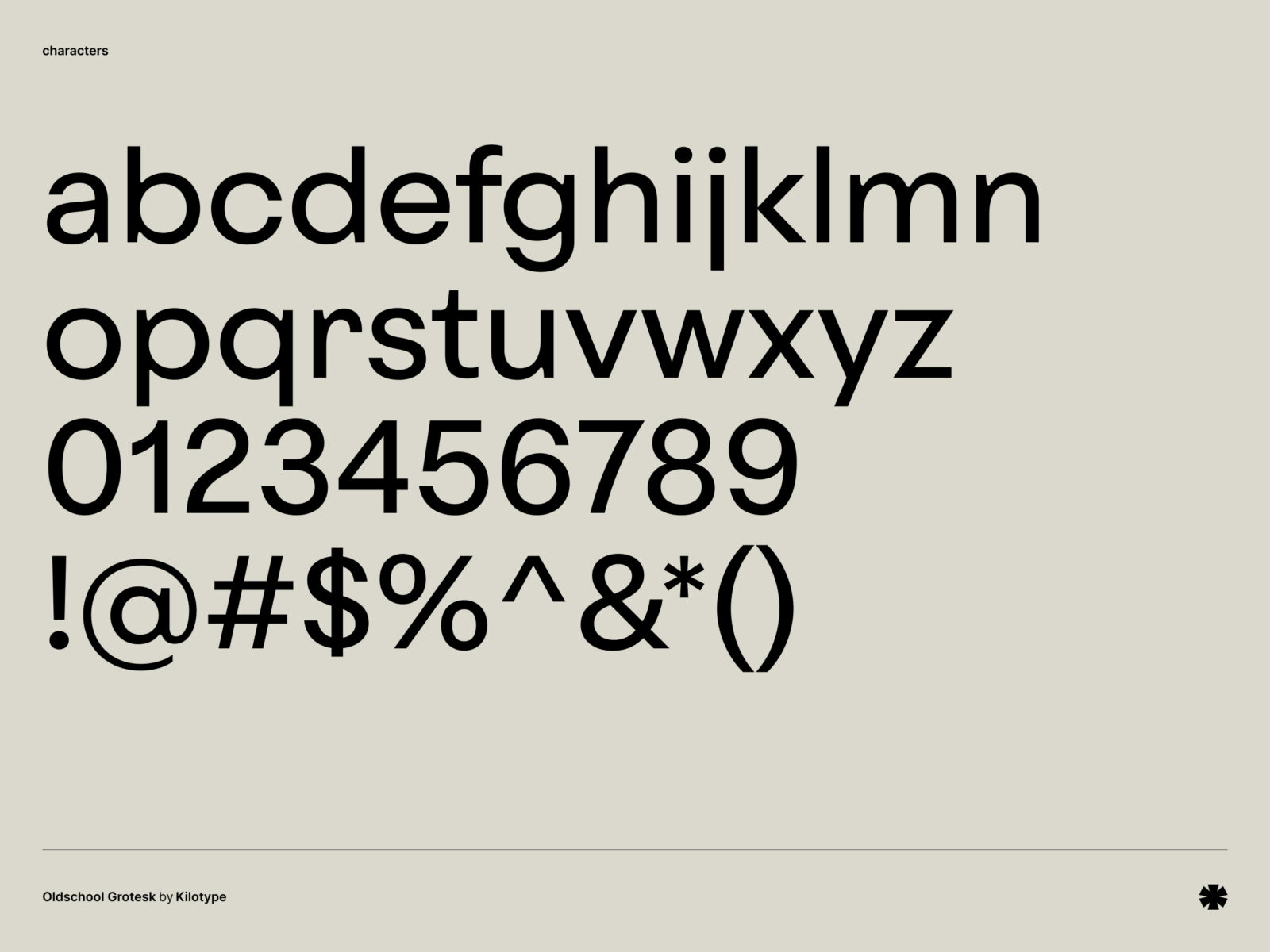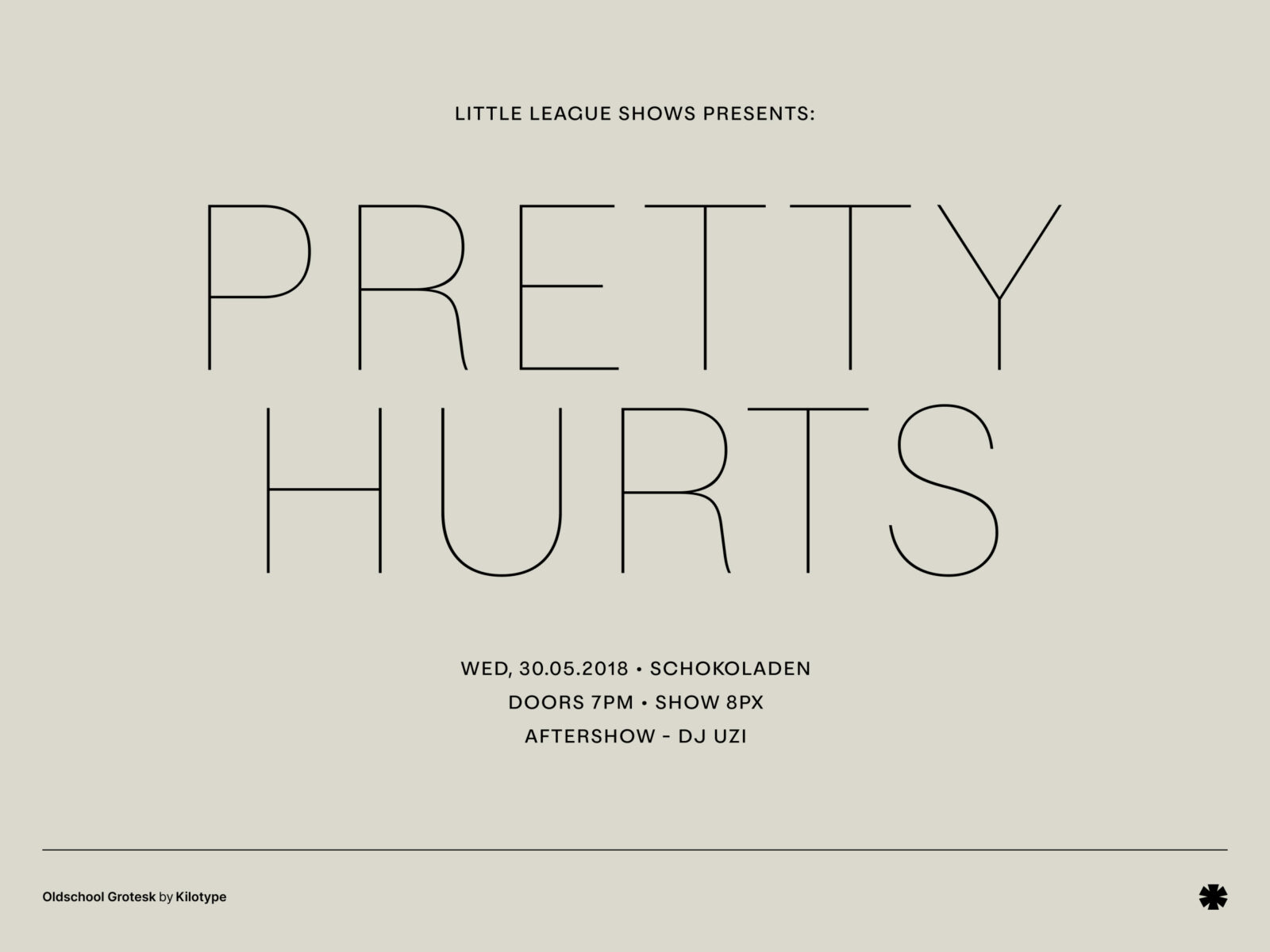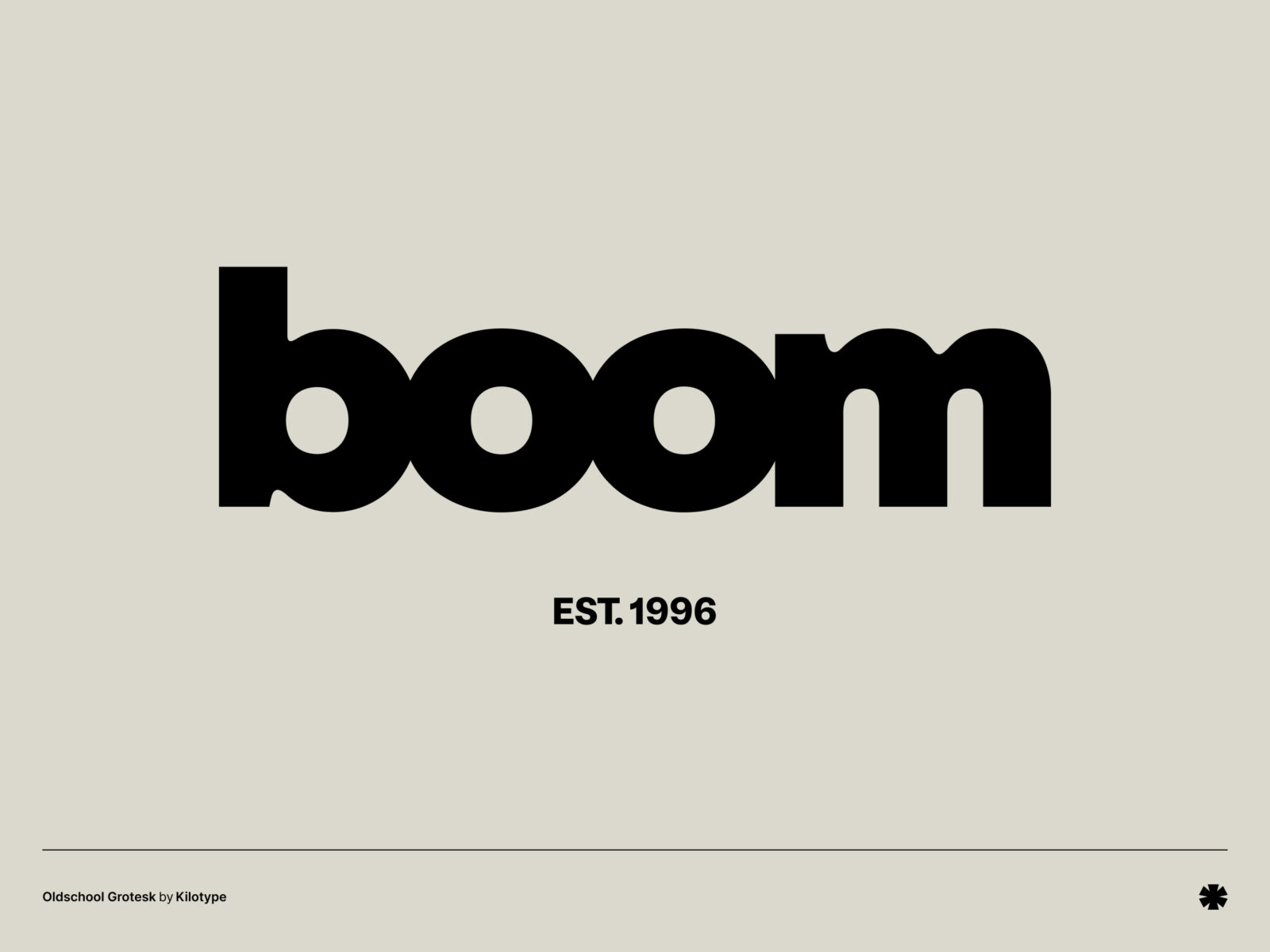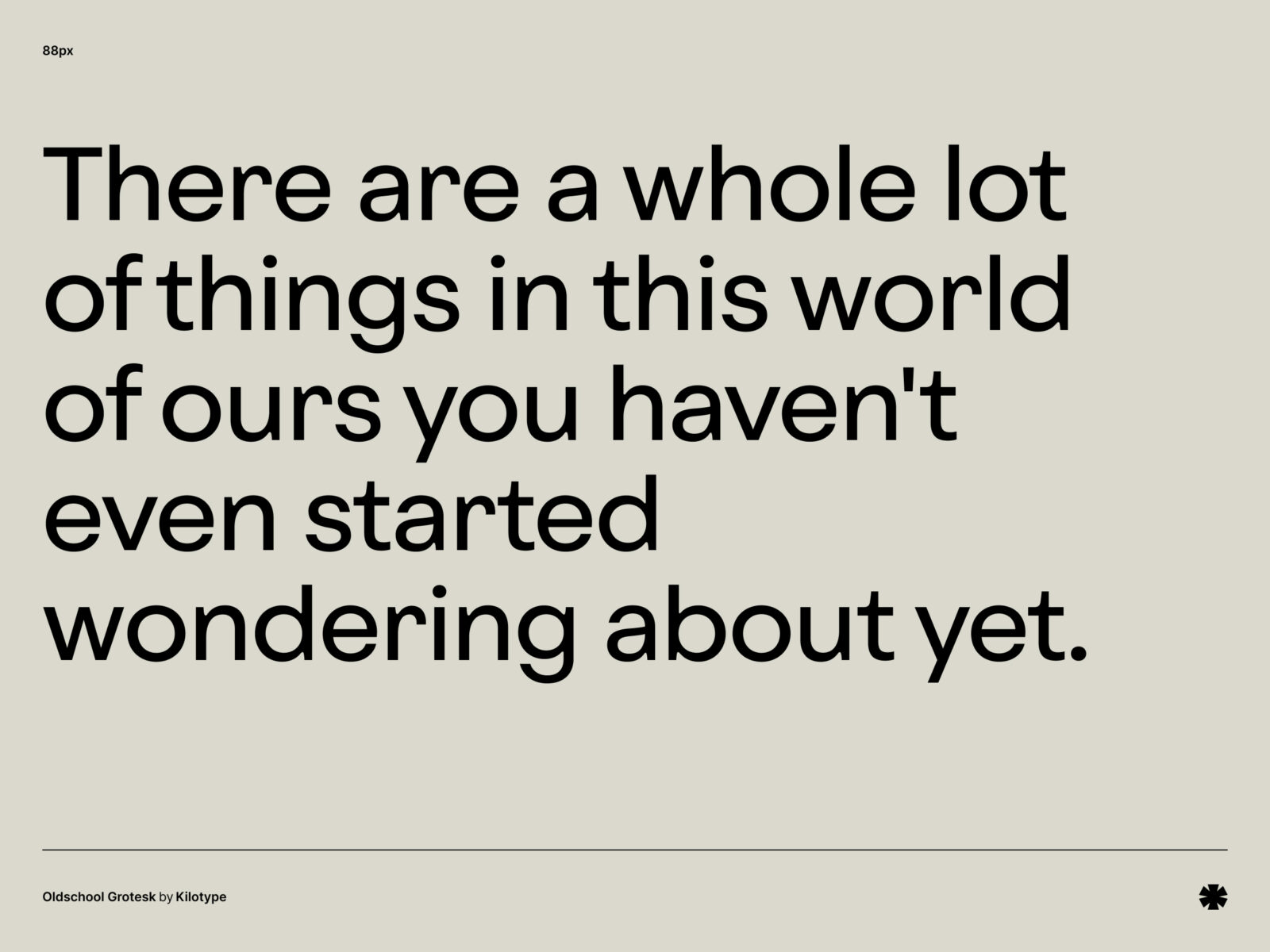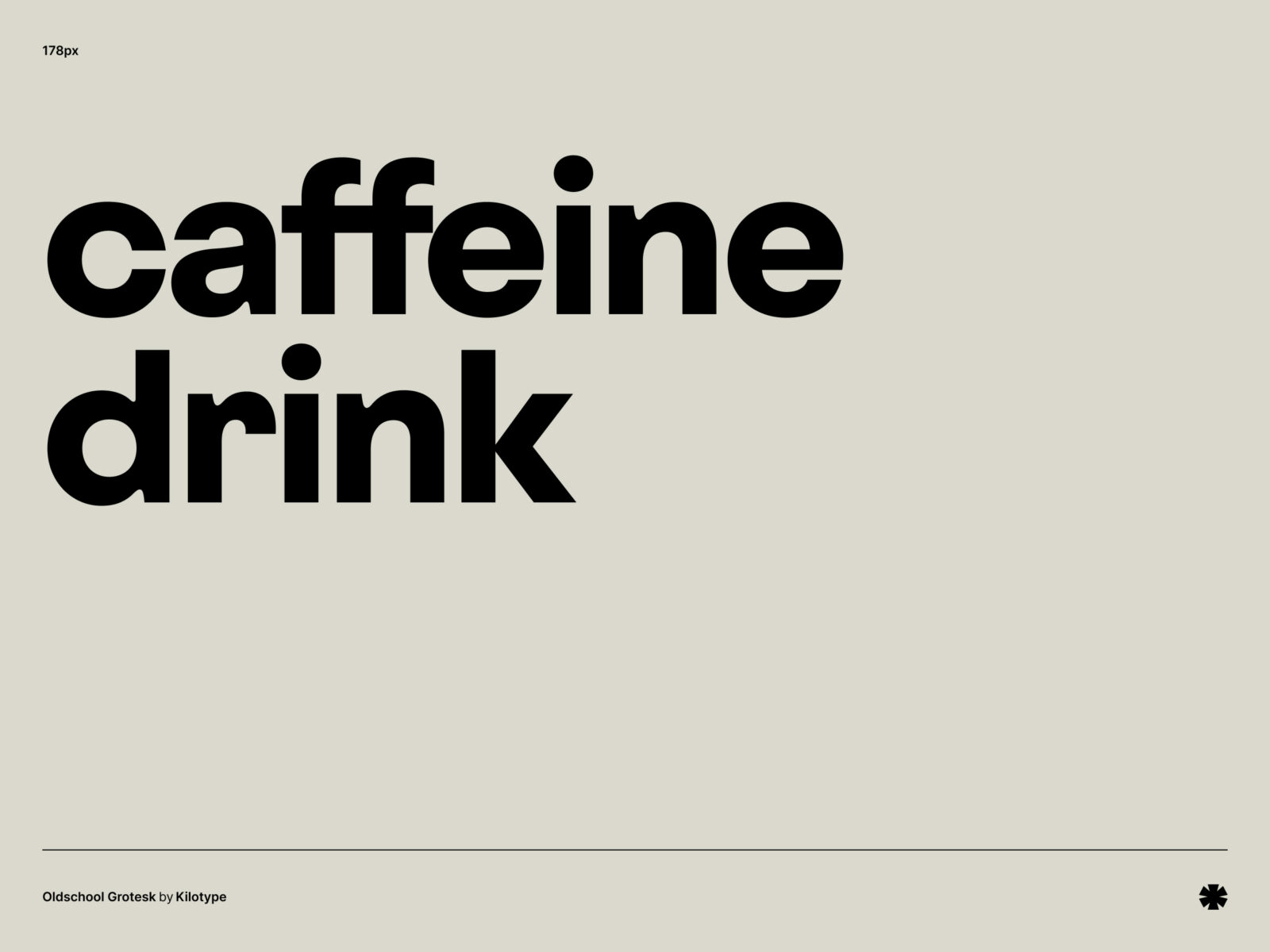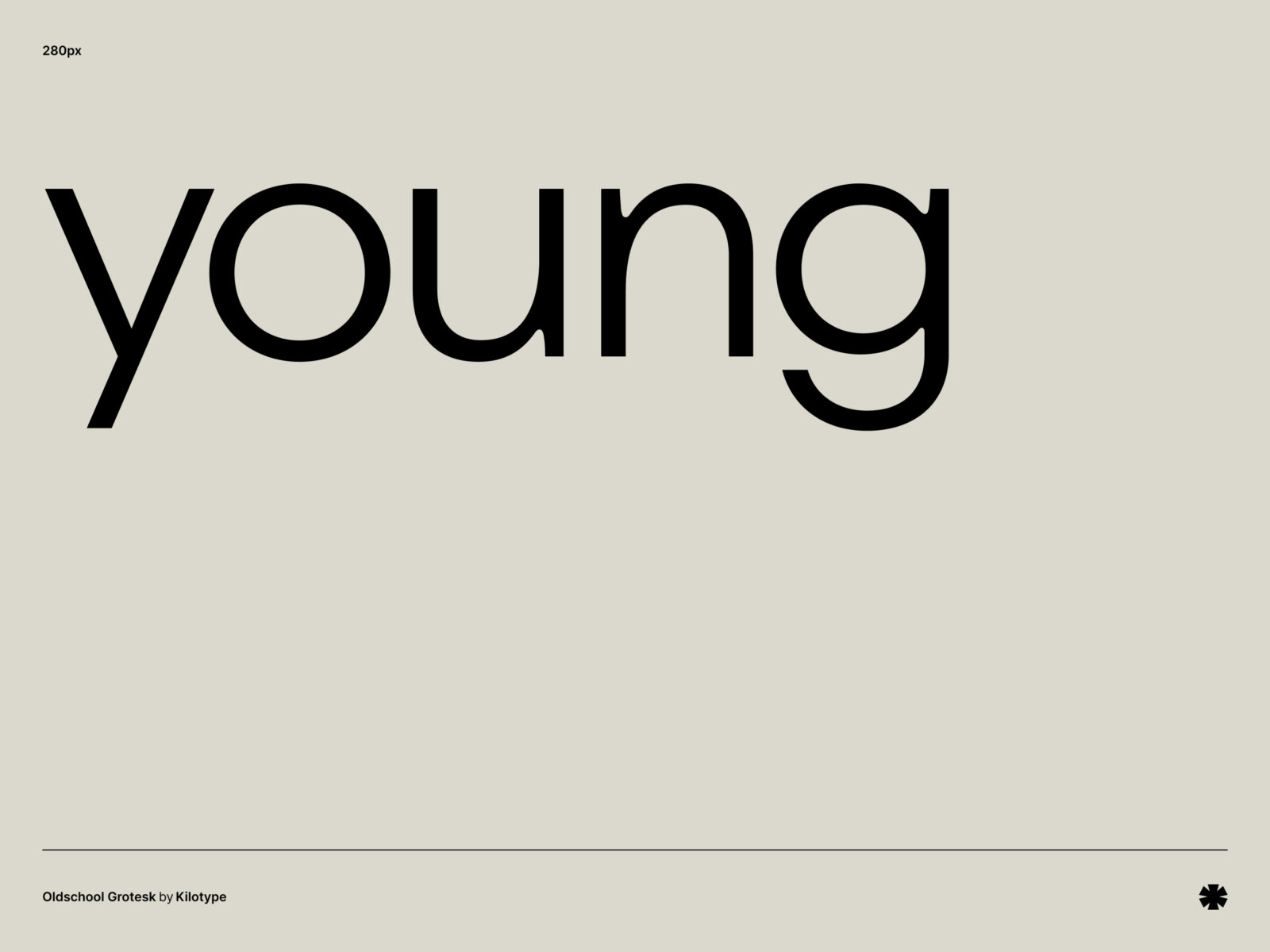
Oldschool Grotesk draws from early British Grotesques and transforms the original eccentric details into a modern typeface well suited for print and digital.